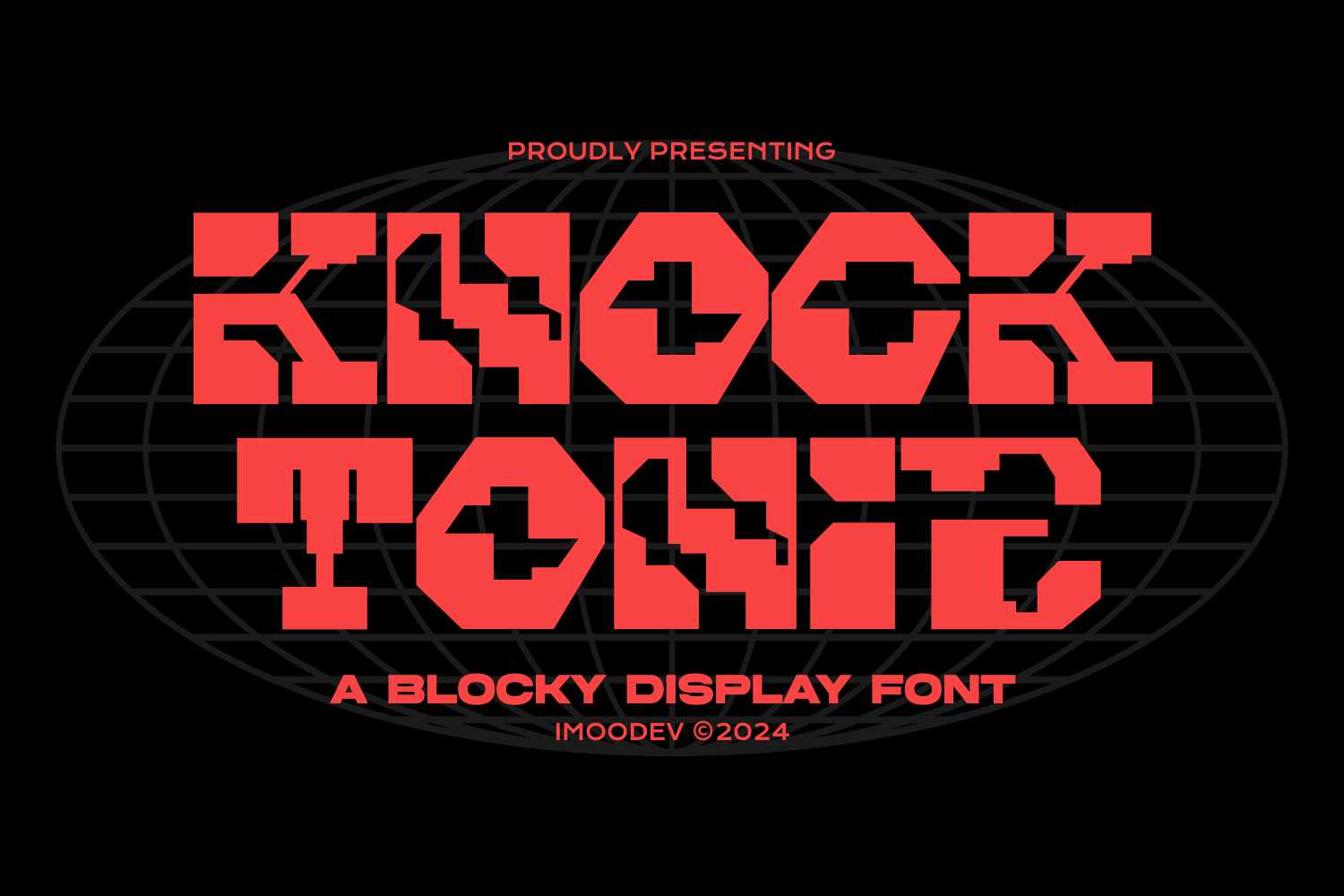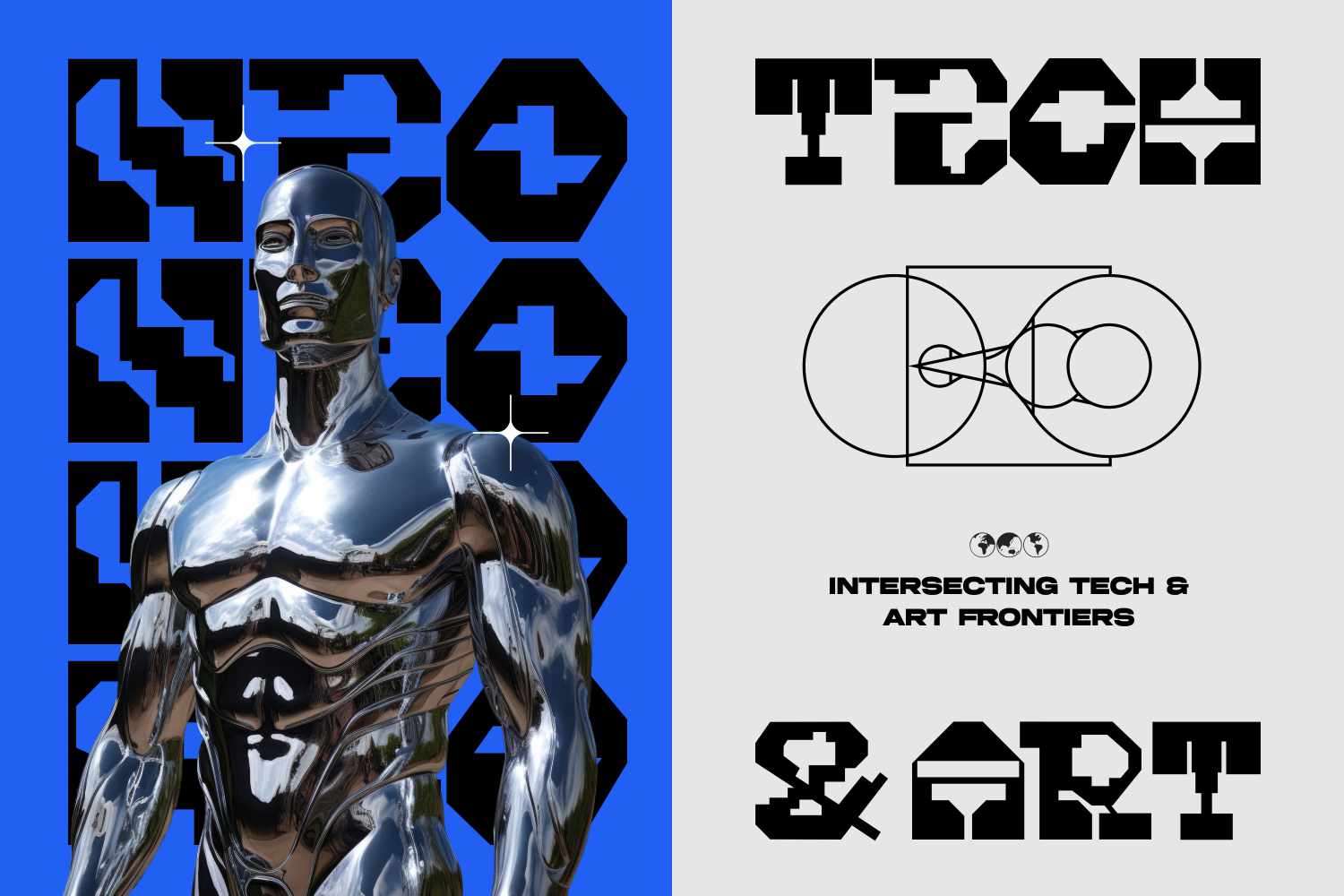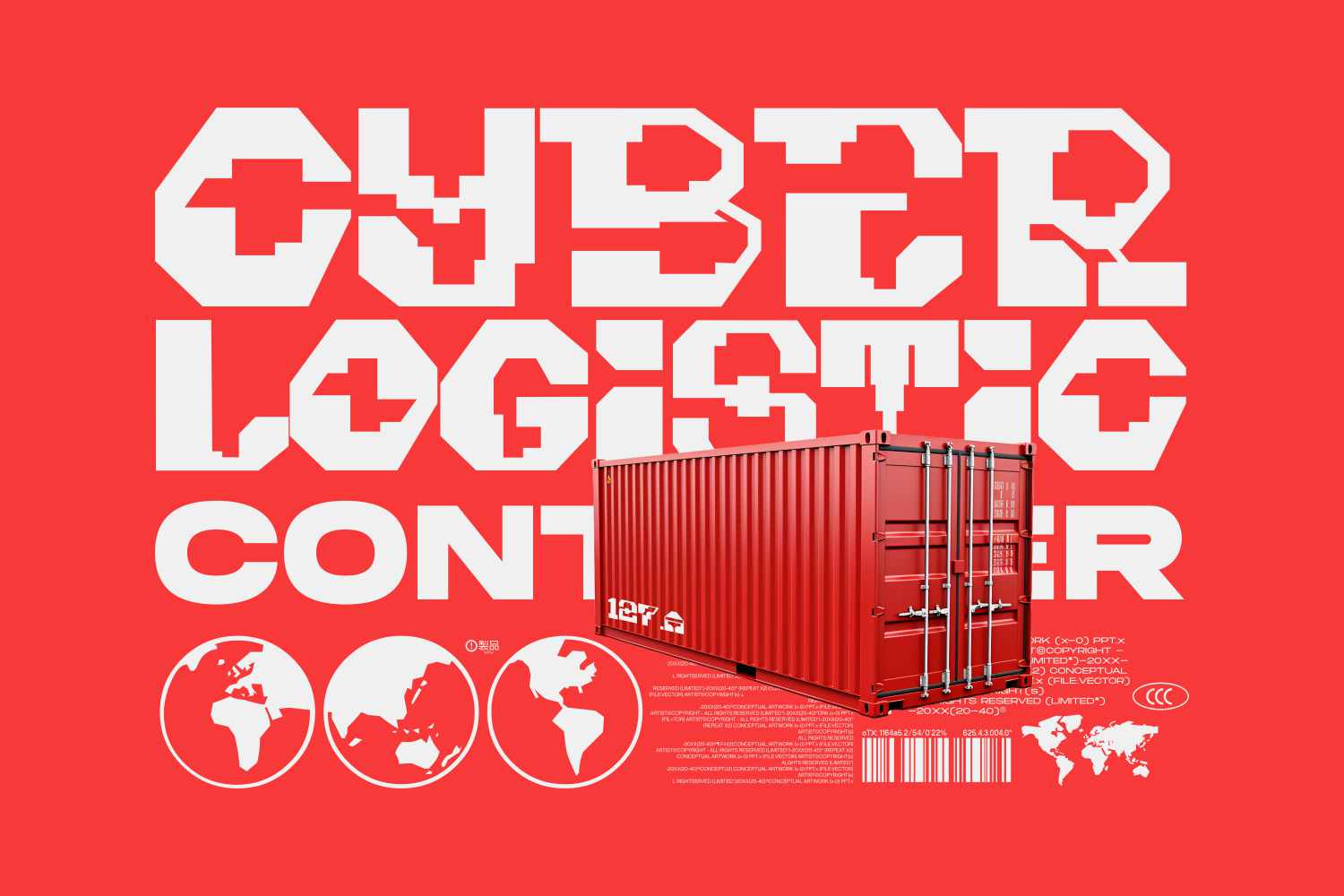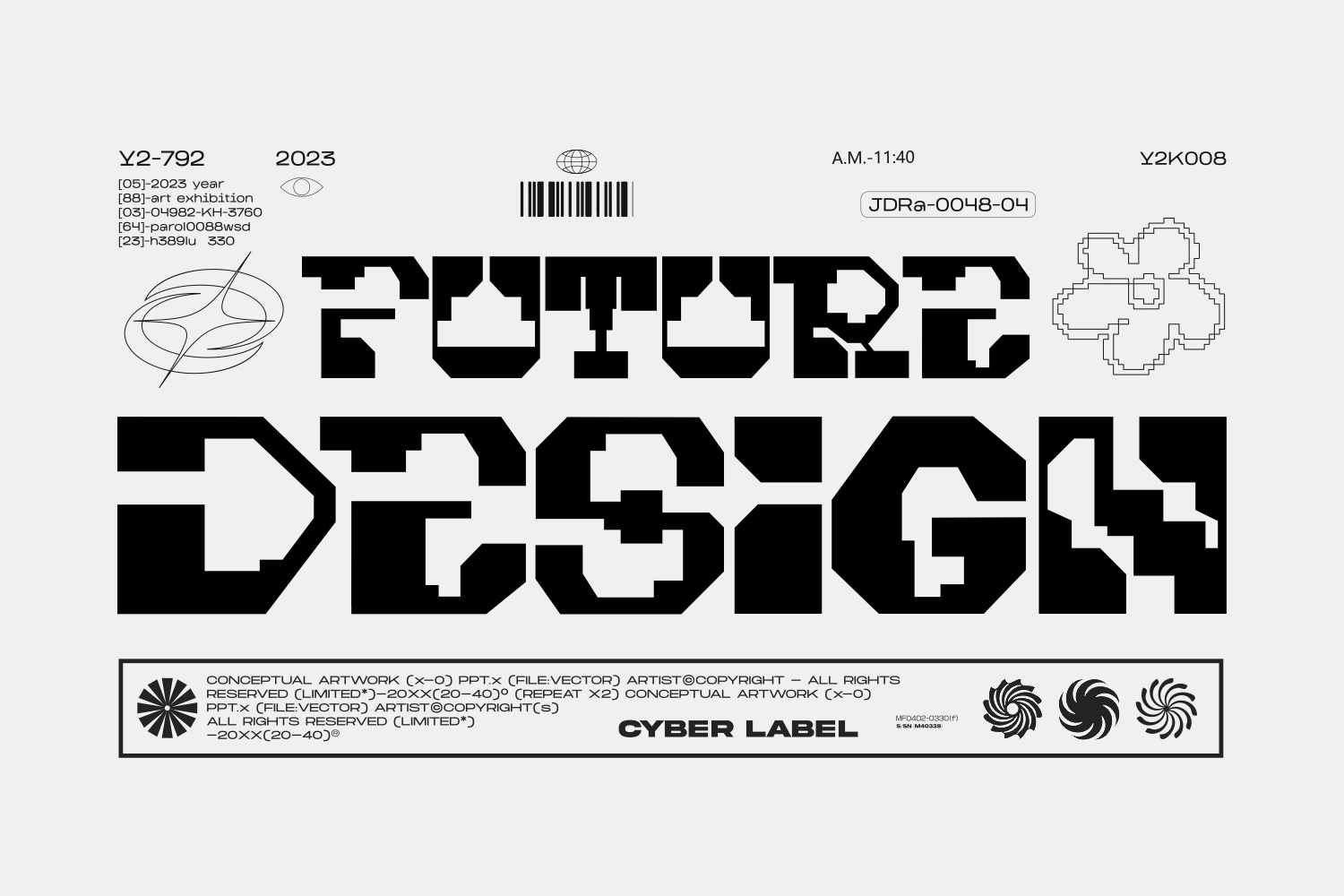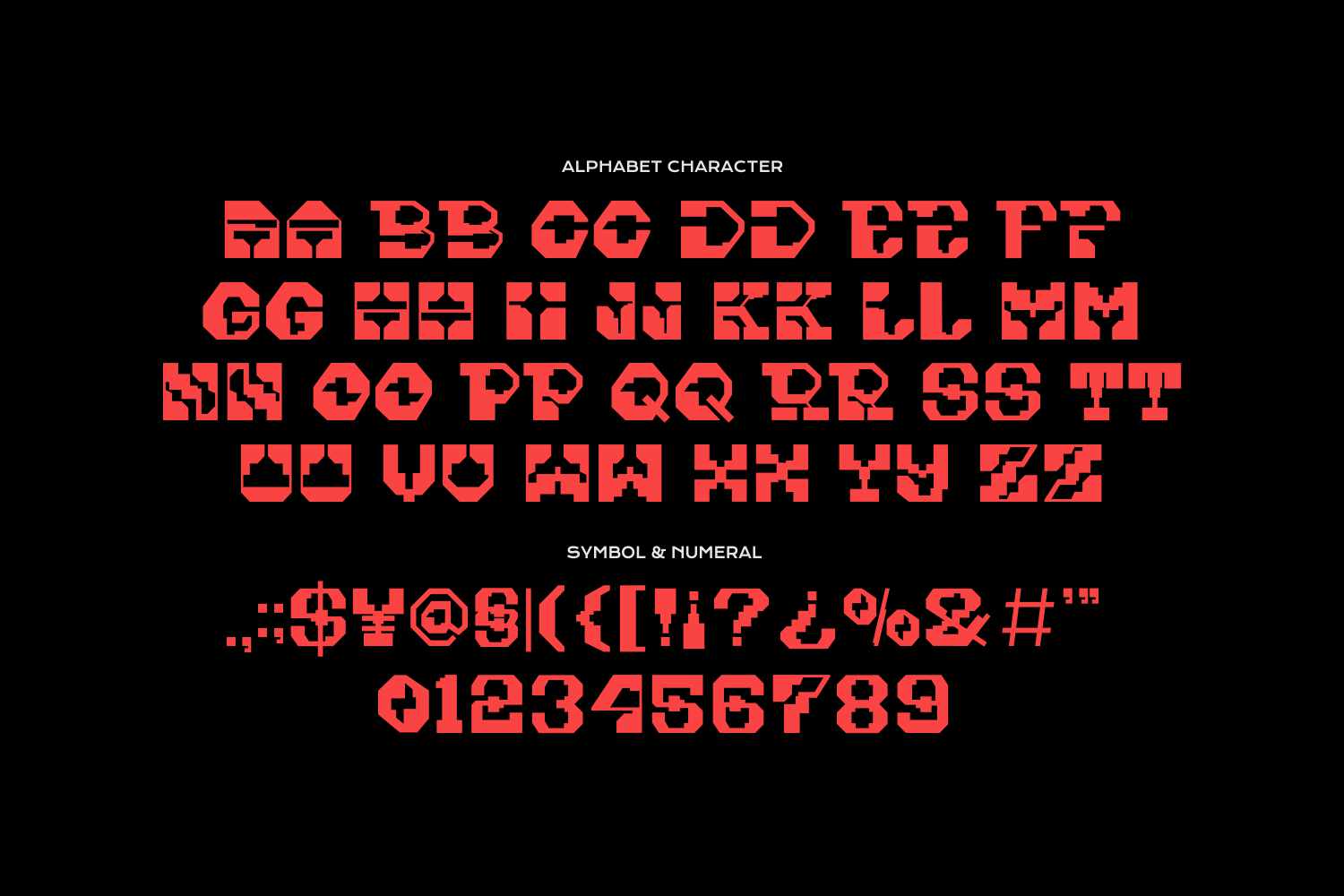
Knock Tonic is a bold blocky display font that pushes the boundaries of modern typography. With its sharp geometric cuts, solid shapes, and futuristic industrial vibe, it instantly commands attention in any design. This font is perfect for tech-inspired projects, cyberpunk aesthetics, event posters, or branding that demands a powerful and unconventional presence. Its modular structure adds a strong visual rhythm, making it ideal for large-scale titles and impactful layouts.
Featuring uppercase letters, numerals, and symbols, Knock Tonic offers versatile creative possibilities for designers who want to merge technology with artistry. Whether used in digital interfaces, music album covers, fashion branding, or packaging, this font delivers a high-impact, contemporary look. Its unique combination of retro pixel influence and modern block forms ensures your designs stand out in both print and screen formats.